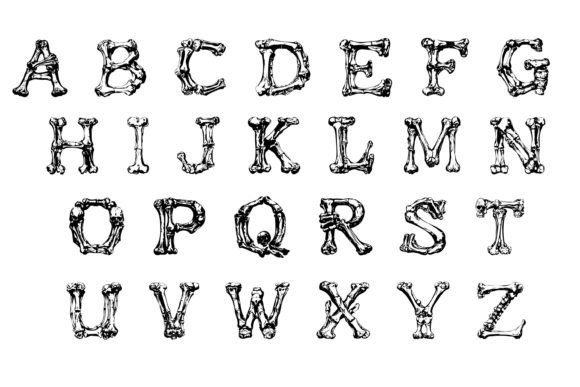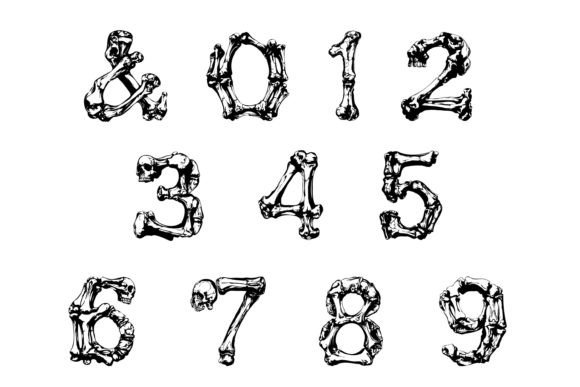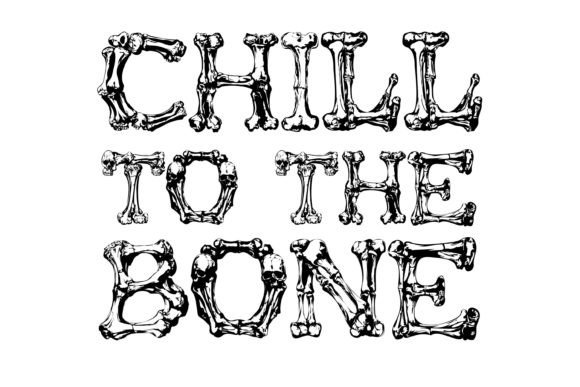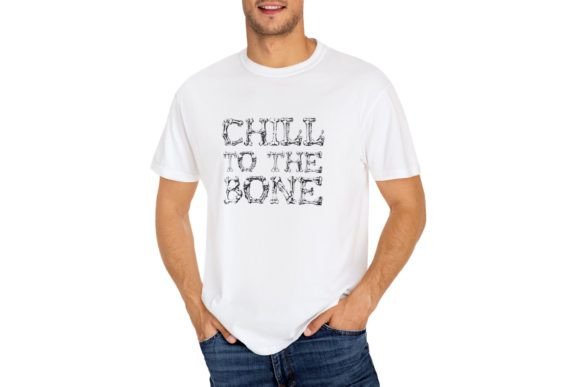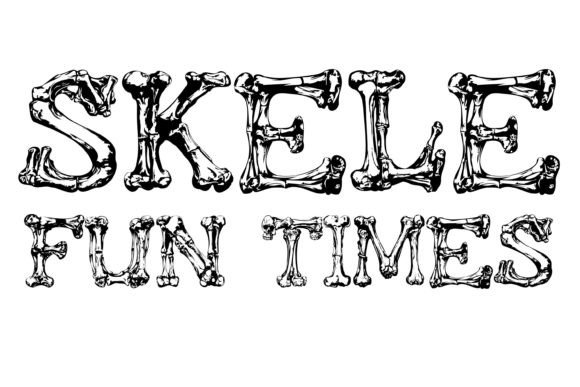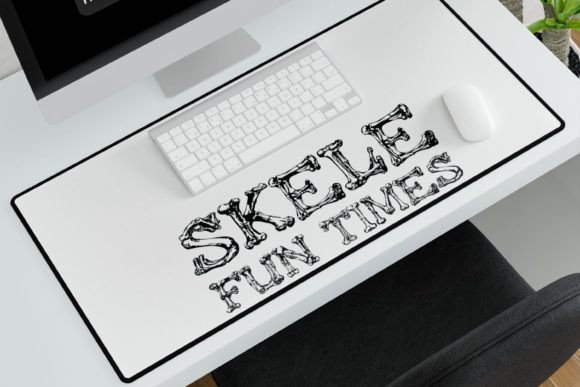
BoneScript Font: Unleash the Eeriness in Your Designs
Are you ready to add a spine-tingling twist to your designs? Look no further than BoneScript Font, a uniquely conceived skeleton display typeface that will make your work stand out from the crowd. This gothic bone alphabet is perfect for Halloween compositions, spine-chilling skull typography, and any project that requires a touch of the eerie and unknown.
The Art of BoneScript Font
BoneScript Font is a hand-drawn bone style font that blurs the line between the artistic and the eerie. Every single character, whether it’s a letter, number, or symbol, has been delicately molded to mirror real bones in uncanny detail. The result is a font that is both tantalizingly spooky and visually striking. The attention to detail in BoneScript Font is impressive, with each character carefully crafted to create a sense of unease and intrigue.
BoneScript Font is perfect for designers and crafters who want to add a supernatural touch to their work. Whether you’re working on monstrous party invitations, gruesome horror posters, or bone-chilling apparel designs, this font has got you covered. The versatility of BoneScript Font means that it can be used in a variety of contexts, from digital creations to print productions.
Key Features of BoneScript Font
- Unique and eerie design: BoneScript Font is a one-of-a-kind font that will add a touch of the unknown to your designs.
- Hand-drawn bone style: Each character has been carefully crafted to mirror real bones in uncanny detail.
- High-definition resolution: BoneScript Font is available in high-definition resolution, making it perfect for digital creations and print productions.
- Complete character set: The font includes a complete character set, including letters, numbers, and symbols.
Uses for BoneScript Font
BoneScript Font is perfect for a variety of projects, including:
- Halloween compositions: Add a touch of the eerie and unknown to your Halloween designs.
- Spine-chilling skull typography: Create striking skull typography that will leave a lasting impression.
- Monstrous party invitations: Invite your guests to a monstrous party with BoneScript Font.
- Gruesome horror posters: Create posters that will leave your audience shivering with fear.
- Bone-chilling apparel designs: Add a supernatural touch to your apparel designs with BoneScript Font.
Why Choose BoneScript Font?
So why choose BoneScript Font for your next project? Here are just a few reasons:
- Unique and eye-catching: BoneScript Font is a one-of-a-kind font that will make your work stand out from the crowd.
- High-quality design: The font has been carefully crafted to ensure that it is both visually striking and eerie.
- Versatile: BoneScript Font can be used in a variety of contexts, from digital creations to print productions.
In conclusion, BoneScript Font is a uniquely conceived skeleton display typeface that is perfect for designers and crafters who want to add a touch of the eerie and unknown to their work. With its hand-drawn bone style, high-definition resolution, and complete character set, BoneScript Font is the perfect choice for any project that requires a supernatural touch. So why wait? Download BoneScript Font today and unleash the eeriness in your designs!